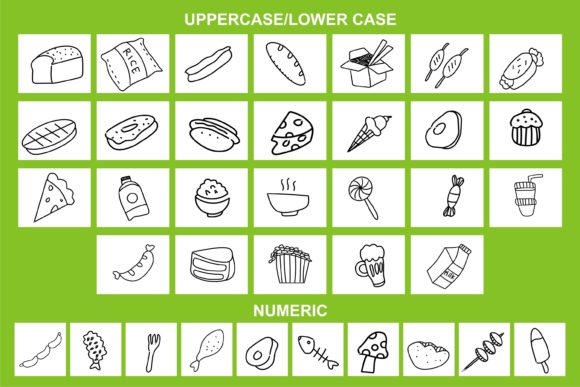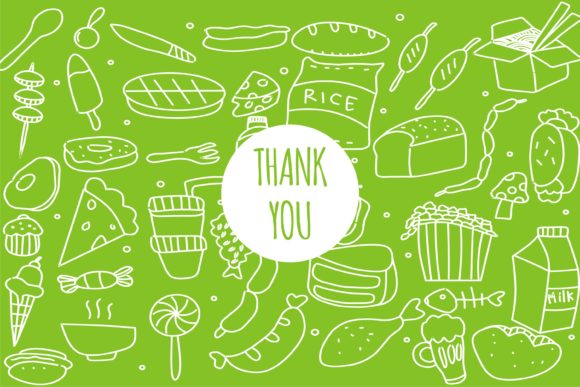
Introduction to Foodies Font
Foodies is a cool, creative and useful dingbats font.
Foodies Font offers exceptional quality and versatility, making it a valuable addition to your design toolkit. Whether you’re creating for personal projects or commercial use, Foodies Font delivers professional results.